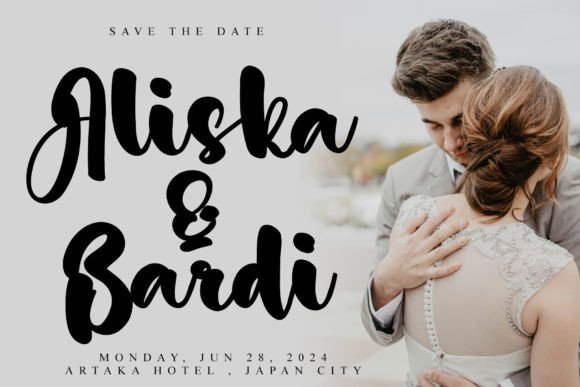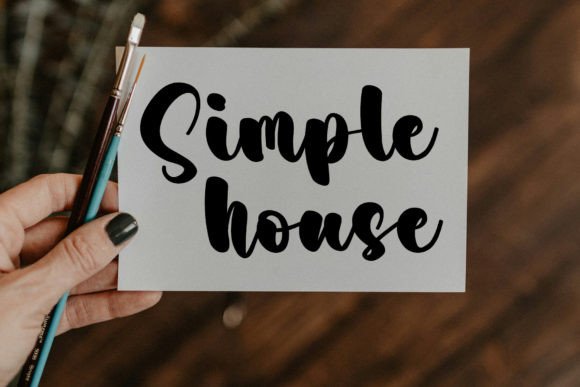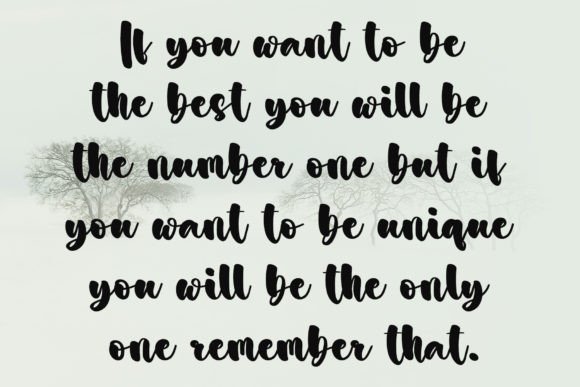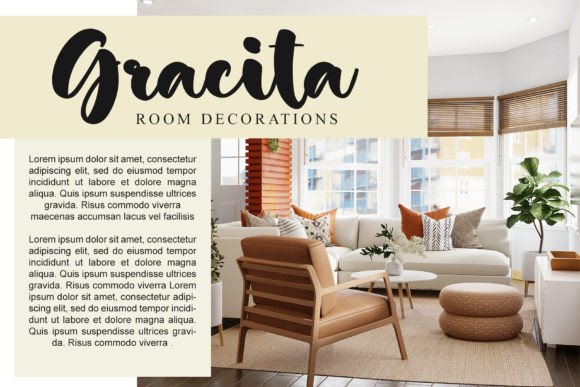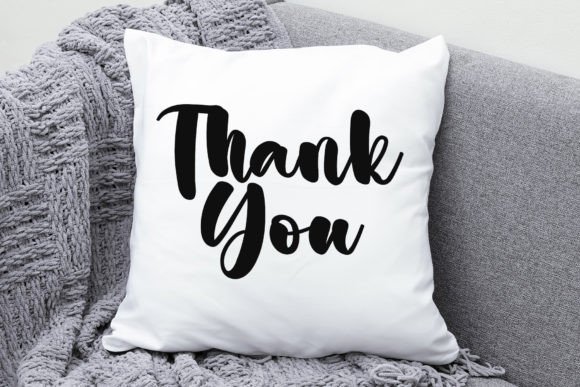
Introducing Alivation Font: Elevate Your Designs with a Stylish and Modern Handwritten Touch
Are you tired of using the same old fonts for your designs? Look no further! Alivation Font is here to revolutionize the way you create. This stunning handwritten font is perfect for designers and crafters who want to add a touch of elegance and sophistication to their work. In this article, we’ll dive into the features and benefits of Alivation Font, and explore how it can elevate your designs to the next level.
A Font for All Occasions
Alivation Font is a versatile and modern handwritten font that is suitable for a wide spectrum of applications. Whether you’re designing greeting cards, headlines, branding materials, or packaging, this font is sure to bring a happiness touch to each of your creations. Its unique and stylish design makes it perfect for a variety of projects, from formal to informal, and from digital to print.
One of the standout features of Alivation Font is that it is PUA (Private Use Area) encoded. This means that you can access all of the amazing glyphs and ligatures with ease, giving you complete creative control over your designs. With PUA encoding, you can effortlessly switch between different characters and glyphs, making it simple to customize your text and make it truly unique.
What Makes Alivation Font Special?
So, what sets Alivation Font apart from other fonts on the market? Here are just a few features that make it special:
- Stylish and Modern Design: Alivation Font boasts a fresh and contemporary design that is sure to turn heads. Its stylish and modern aesthetic makes it perfect for designers who want to create unique and eye-catching designs.
- Handwritten with Love: This font is carefully crafted with a personal touch, giving it a warm and inviting feel. Each letter is written with love and care, making it perfect for designs that require a personal and human touch.
- PUA Encoded: As mentioned earlier, Alivation Font is PUA encoded, making it easy to access all of the amazing glyphs and ligatures.
- Wide Range of Applications: This font is suitable for a wide range of applications, from greeting cards to headlines, branding, and packaging.
Tips and Tricks for Getting the Most Out of Alivation Font
Here are a few tips and tricks for getting the most out of Alivation Font:
- Experiment with Different Sizes: Alivation Font looks great in a variety of sizes, from small and delicate to large and bold. Experiment with different sizes to find the perfect fit for your design.
- Play with Glyphs and Ligatures: With its PUA encoding, Alivation Font offers a wide range of glyphs and ligatures to choose from. Experiment with different combinations to add visual interest to your designs.
- Pair it with Other Fonts: Alivation Font pairs well with a variety of other fonts, from serif to sans-serif. Experiment with different pairings to find the perfect combination for your design.